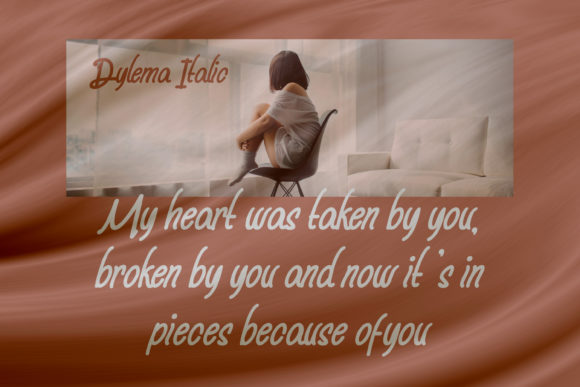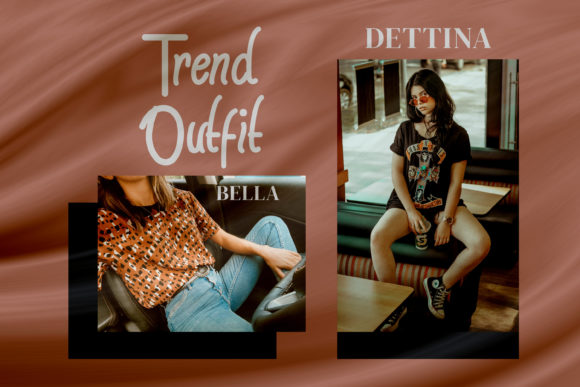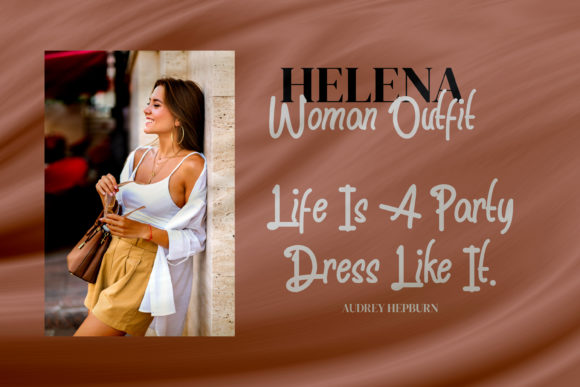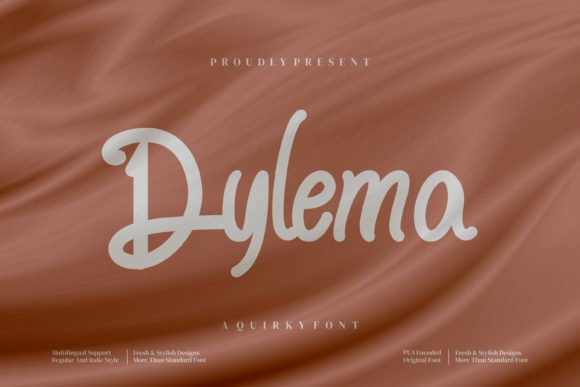
Introduction to Dylema Font
Dylema is a lovely and delicate script font that exudes elegance and class.
This font was particularly crafted for those who need a beautiful and refreshing look to their designs .
Dylema Font offers exceptional quality and versatility, making it a valuable addition to your design toolkit. Whether you’re creating for personal projects or commercial use, Dylema Font delivers professional results.